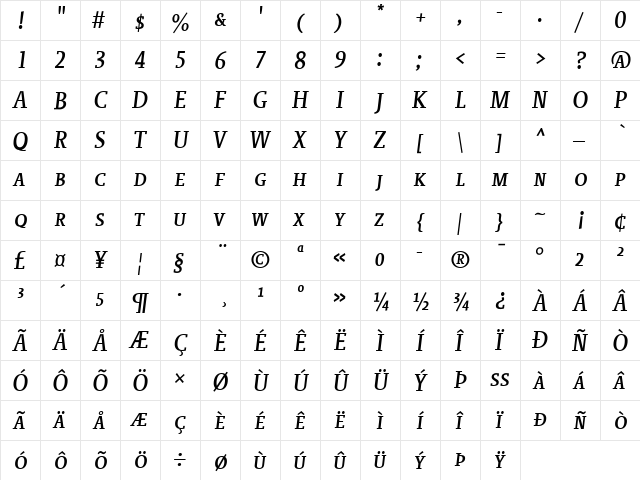
Sheriff Medium
Design Context for Sheriff Typeface
Sheriff offers clean, dependable letterforms without strong stylistic allegiance, making it a practical choice for designers who need flexibility.
Pro Tip: Pair Sheriff with a font of contrasting weight or personality to build a more expressive typographic hierarchy.